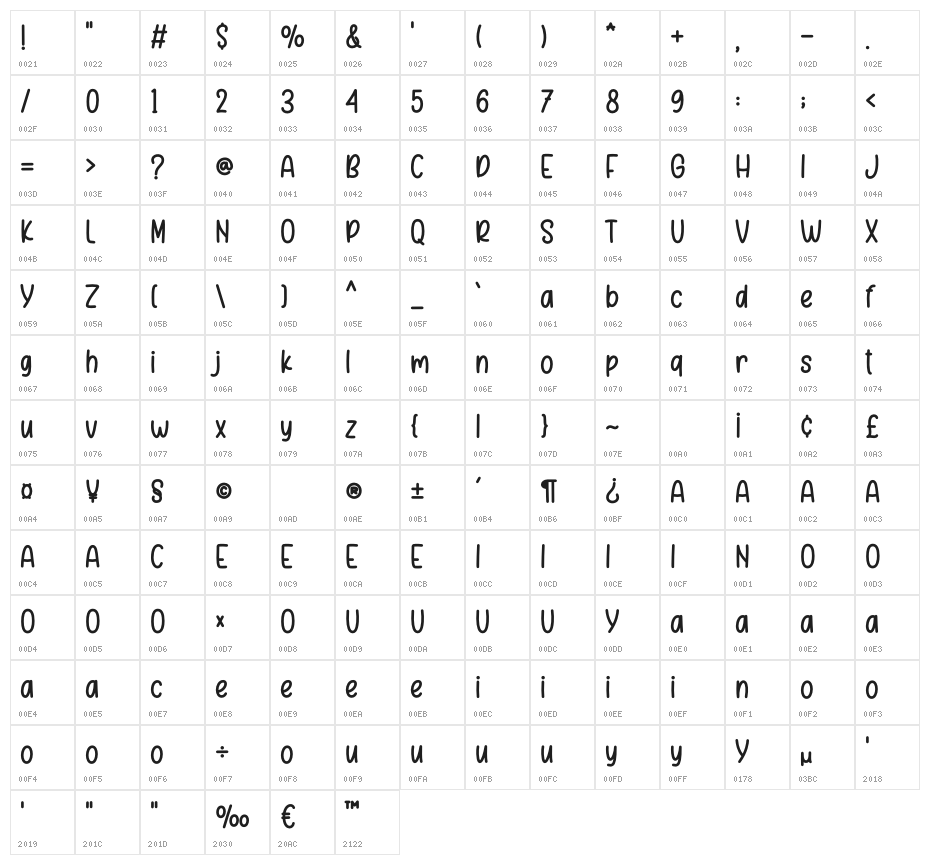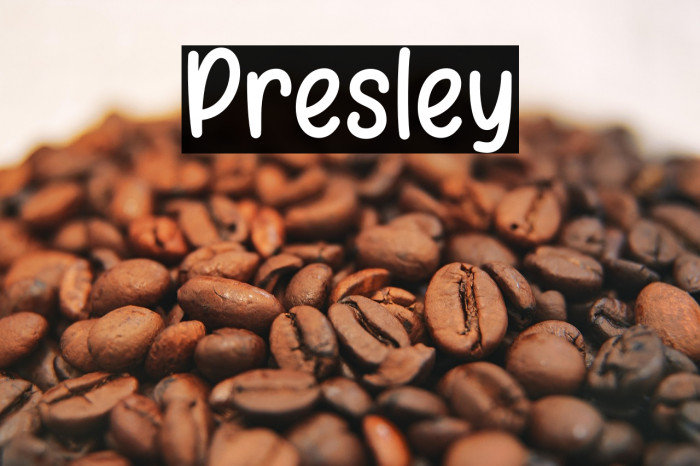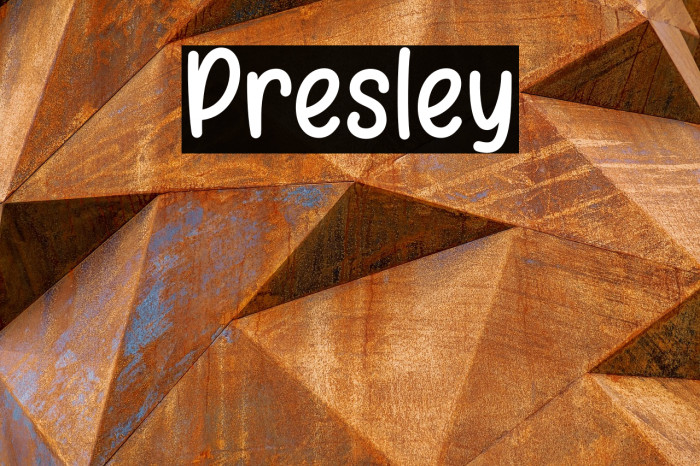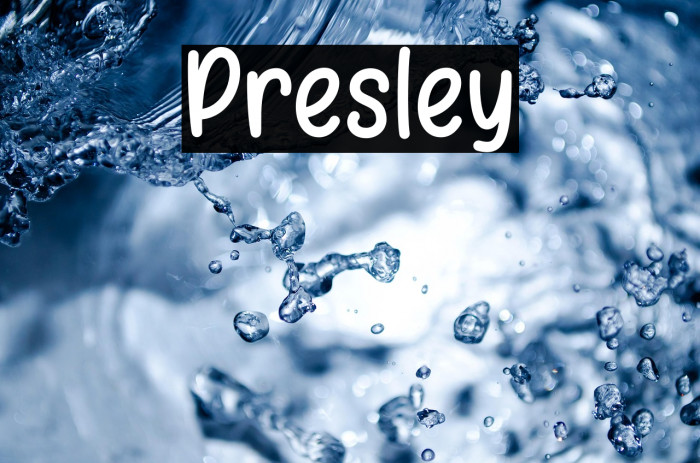
Presley Font
Presley Description
A playful, handwritten font with rounded edges and a casual style, suitable for informal and creative designs.
| Use Case | Logos, Headlines, Informal text |
| Proposed Projects | Greeting cards, children's books, casual branding. |